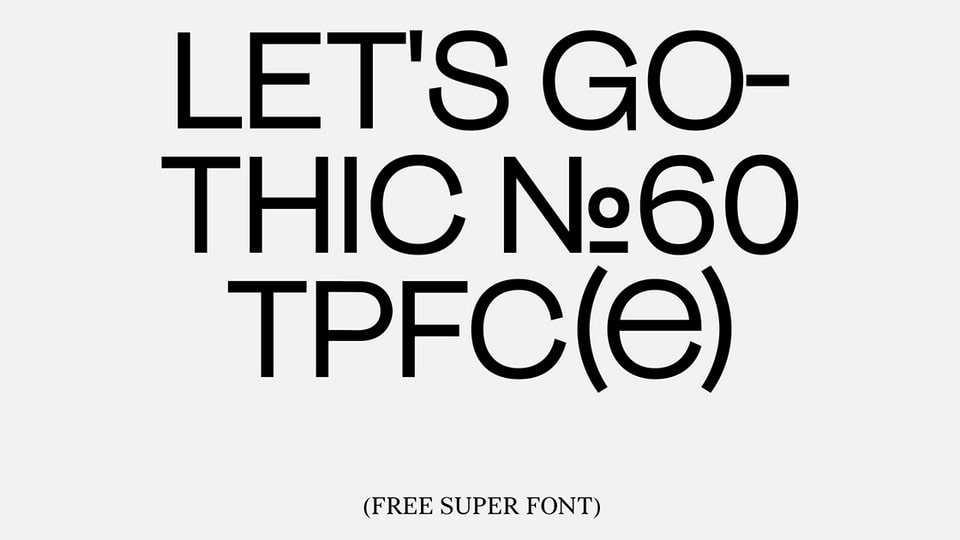
Download Gothic №60 font, a sans serif typeface inspired by Lining Gothic №60 by Chicago, Barnhart Bros. & Spindler (1907) and unicase font on the cover of a Soviet photo magazine.
Designer: Alina Molchanova